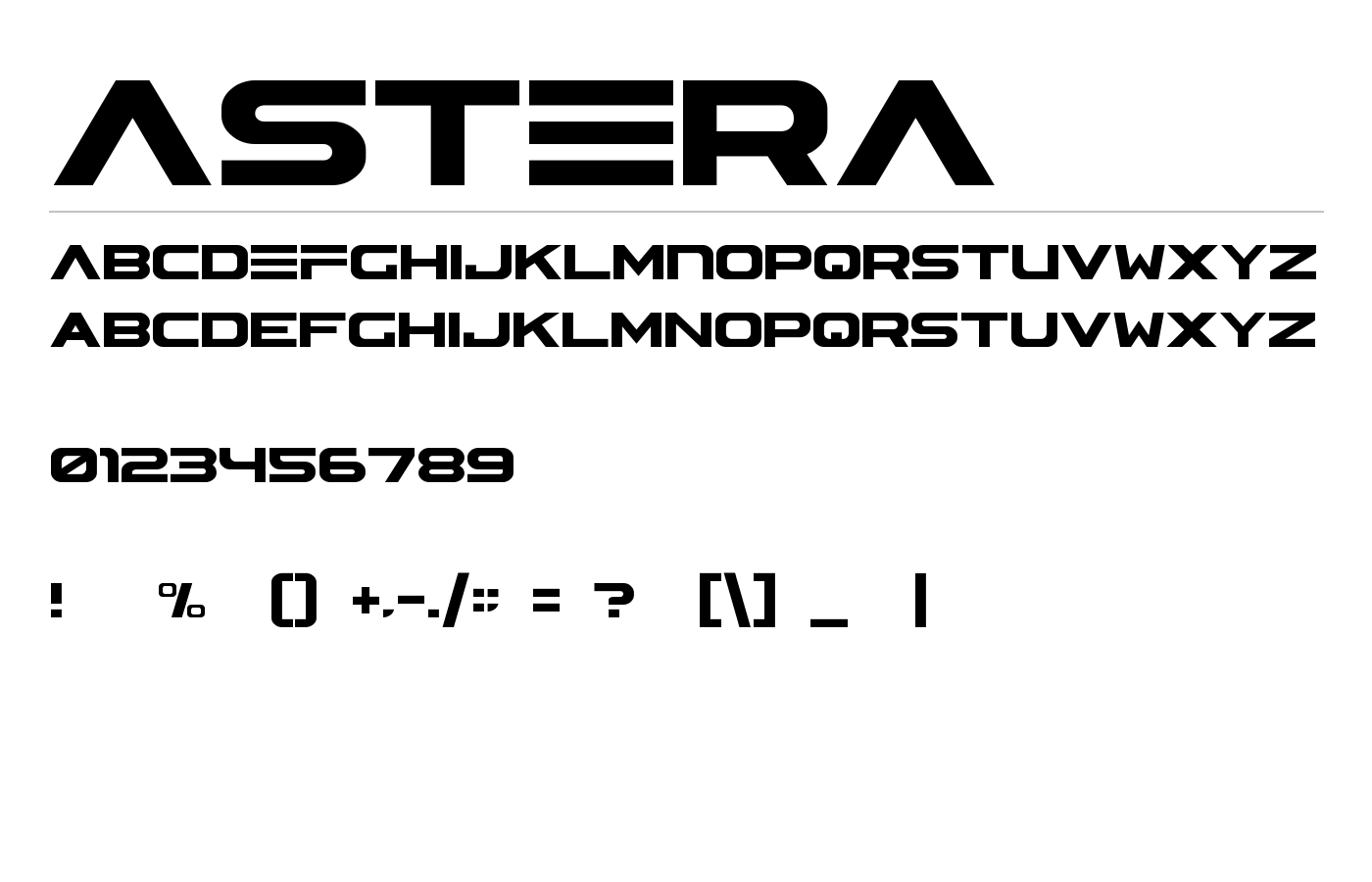
ASTERA is a bold, geometric sans serif font with a futuristic and tech-inspired design. Its sharp angles, clean lines, and unique shapes give it a strong, modern personality ideal for logos, headlines, and branding in industries related to technology, gaming, and innovation. The font combines high impact with readability, making it well-suited for creating a distinctive and dynamic visual presence.
ASTERA Font
About ASTERA Font
| Font family | ASTERA Font |
| Designer | Nick Polyarush |